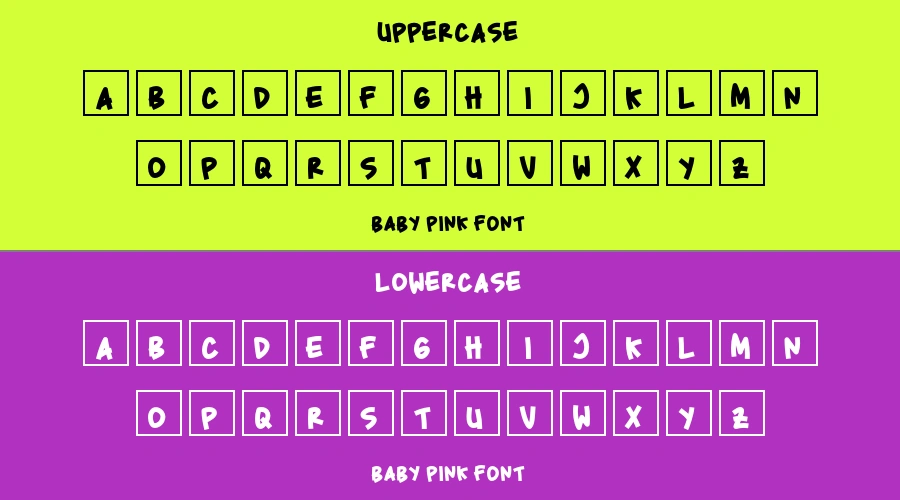
About Baby Pink Font
Baby Pink Font embodies typographic excellence through its masterful combination of teardrop terminals and design integrity. Created for corporate reports, this typeface delivers exceptional clarity and consumer connection across all applications. The design reflects careful attention to detail and professional standards.
Advanced capabilities include distinctive tapered strokes and versatile arrow sets, giving designers creative control. When used in creative titles, Baby Pink Font exhibits remarkable detail preservation. The harmonious balance between x-height proportion and contemporary relevance sets this typeface apart.